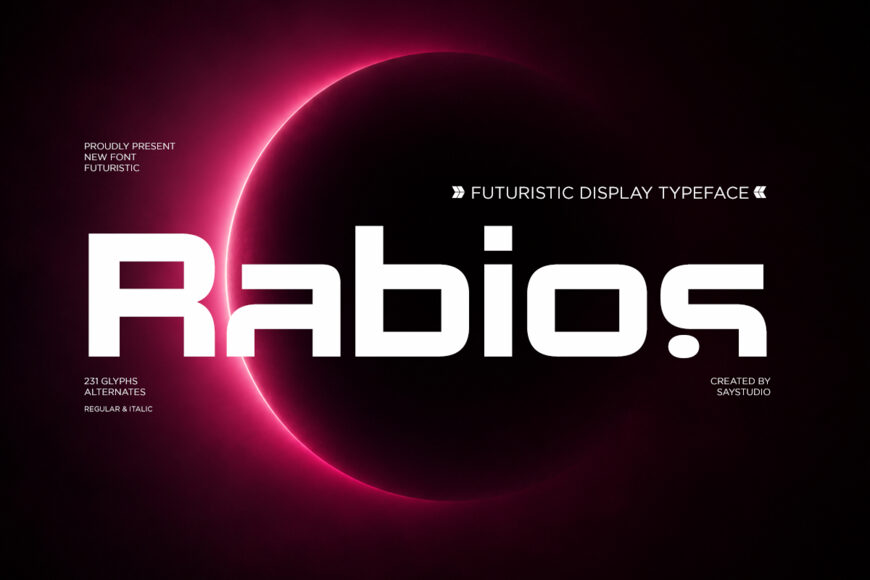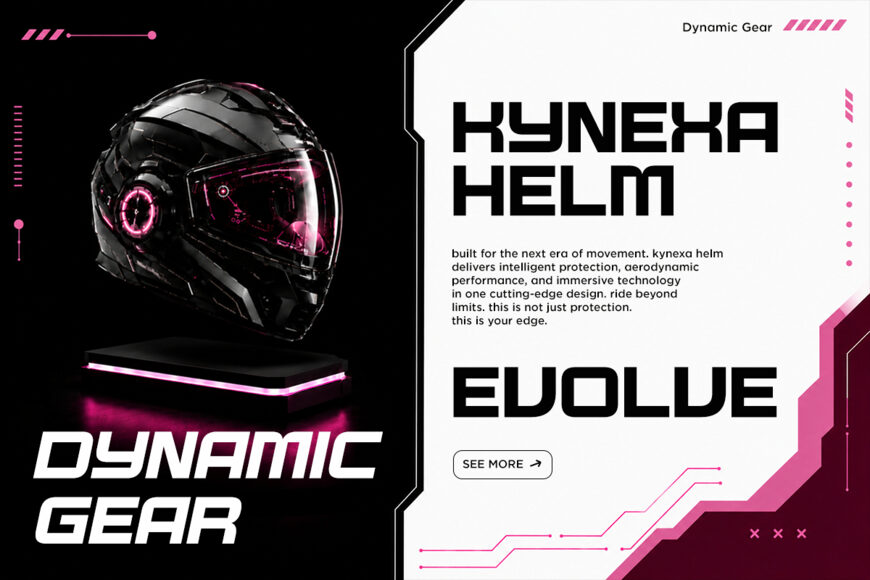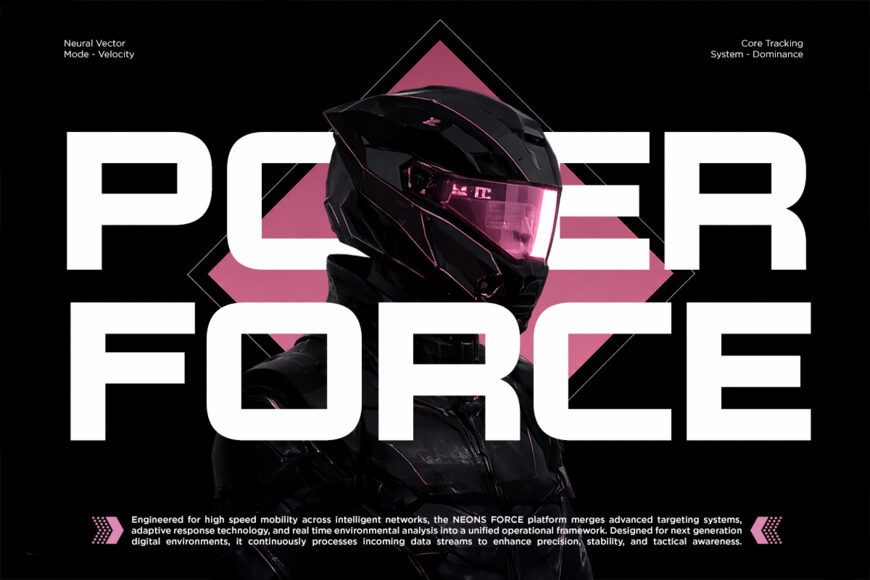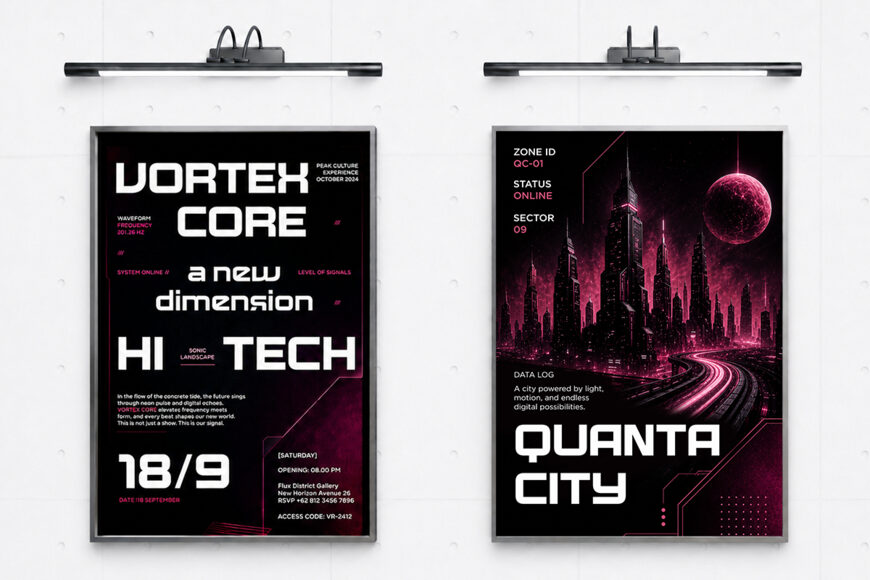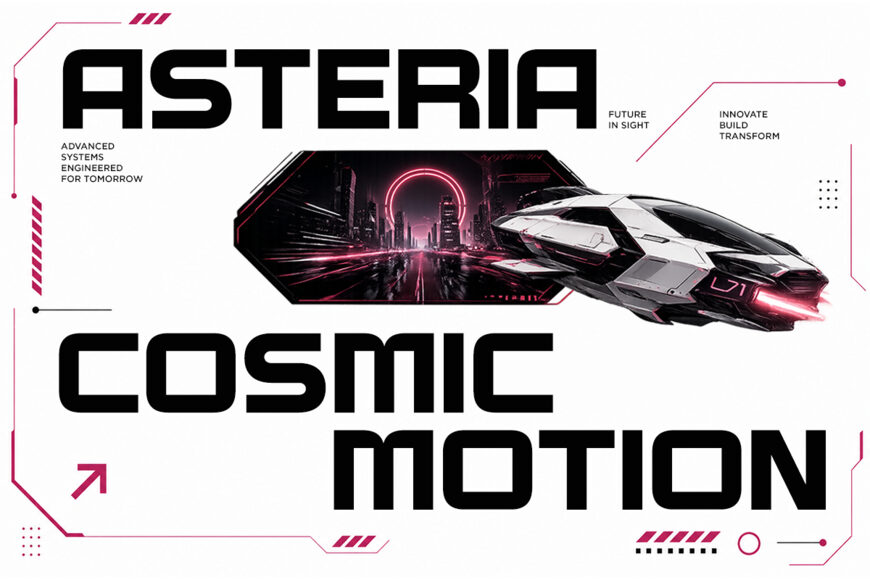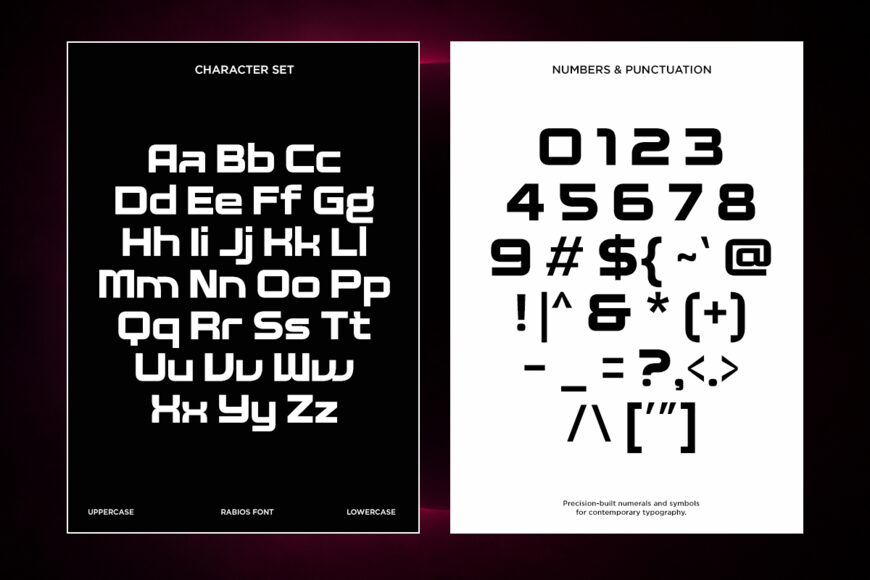
Rabios Font
Rabios is a bold futuristic display typeface designed to bring a powerful technological presence to your creative projects. Featuring geometric construction, rounded corners, and clean modular letterforms, this typeface delivers a sleek sci-fi aesthetic that feels modern, innovative, and forward-thinking.
Its strong visual impact makes it perfect for large headlines, branding systems, and digital experiences where attention and clarity matter most. Futuristic display fonts often rely on geometric shapes, minimal forms, and tech-inspired details to communicate innovation and modernity, and Rabios embraces these characteristics with a distinctive contemporary style.